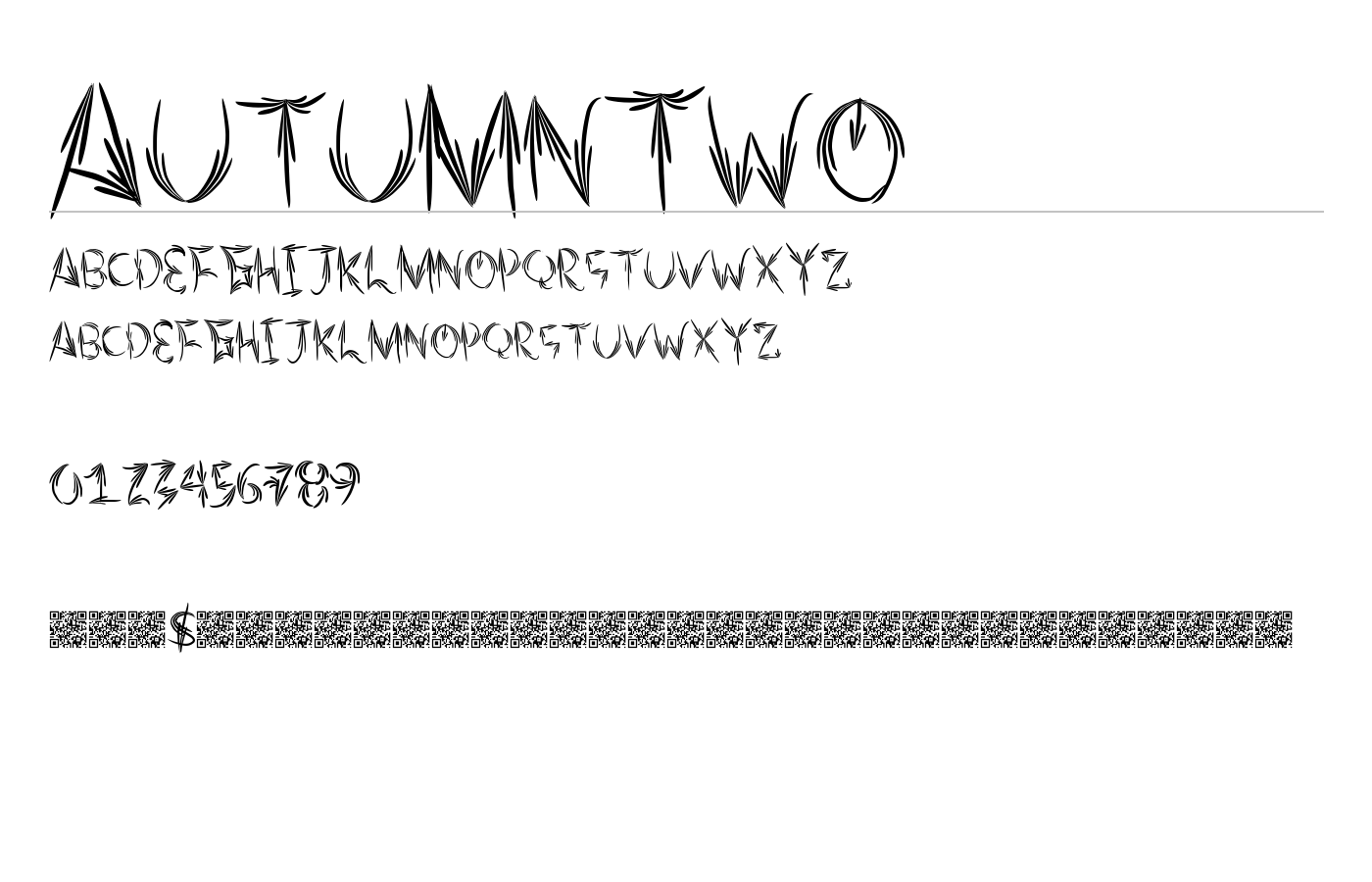
AutumnTwo is a highly decorative and artistic display font characterized by its slender, sharp strokes and intricate, wispy detailing that evokes a hand-drawn, organic feel. Its unique style brings a sense of creativity and mystery, making it ideal for eye-catching headlines, posters, or branding that seeks a distinctive and imaginative touch rather than traditional readability. This font works best in creative projects where style and personality are the focus rather than long-form text.
AutumnTwo Font
About AutumnTwo Font